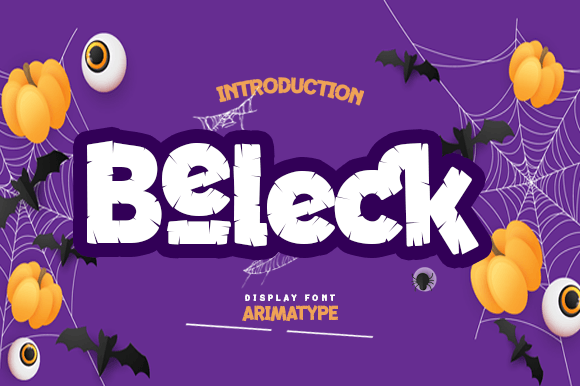
Unleash a whirlwind of creativity and ignite your projects with the extraordinary Beleck Font, a sans serif masterpiece that dances with a spooky twist. Prepare to be mesmerized as your designs transcend into captivating realms of horror and Halloween-themed wonders. Embrace the magic of Beleck, a font that's more than just a collection of letters; it's an artistic gateway to captivating experiences.
Dive into the depths of Beleck's enchanting characters, meticulously crafted to evoke a sense of mystery and intrigue. Each stroke, each curve, each twist tells a tale of the macabre, inviting you to weave your own stories of darkness and delight. With Beleck, your designs will emanate an aura of the supernatural, leaving a haunting impression on all who behold them.
Become the architect of chillingly beautiful designs that send shivers down spines and make hearts race with anticipation. Picture your Halloween invitations adorned with Beleck's eerie elegance, your horror-themed posters exuding an unsettling charm, or your spooky social media posts captivating audiences with their spine-tingling appeal. Unleash your imagination and let Beleck guide you through a labyrinth of creativity where the ordinary becomes extraordinary.
But Beleck's powers aren't limited to the realm of the macabre. Its playful, whimsical nature lends itself effortlessly to projects that demand a touch of lighthearted fun. Create whimsical logos that spark joy, craft eye-catching headlines that dance off the page, or design playful greeting cards that bring smiles to faces. Beleck's versatility knows no bounds, transforming your projects into enchanting expressions of creativity.
With Beleck, the possibilities are endless. Dive into a world of captivating designs that evoke emotions, tell stories, and leave a lasting impression. Embrace the magic of Beleck and watch your creations come alive with an otherworldly charm that will haunt your audience long after they've turned the page.